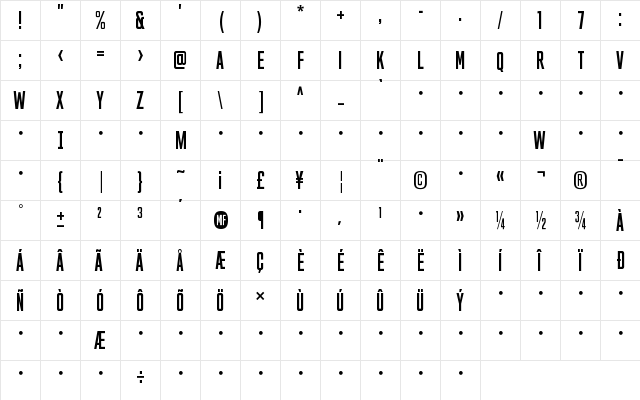
MFred Regular Font Preview
MFred Regular
MFred Regular Font Details
| Foundry | Matt Willey |
| Designer | Matt Willey |
Design Context for MFred Typeface
MFred offers clean, dependable letterforms without strong stylistic allegiance, making it a practical choice for designers who need flexibility.